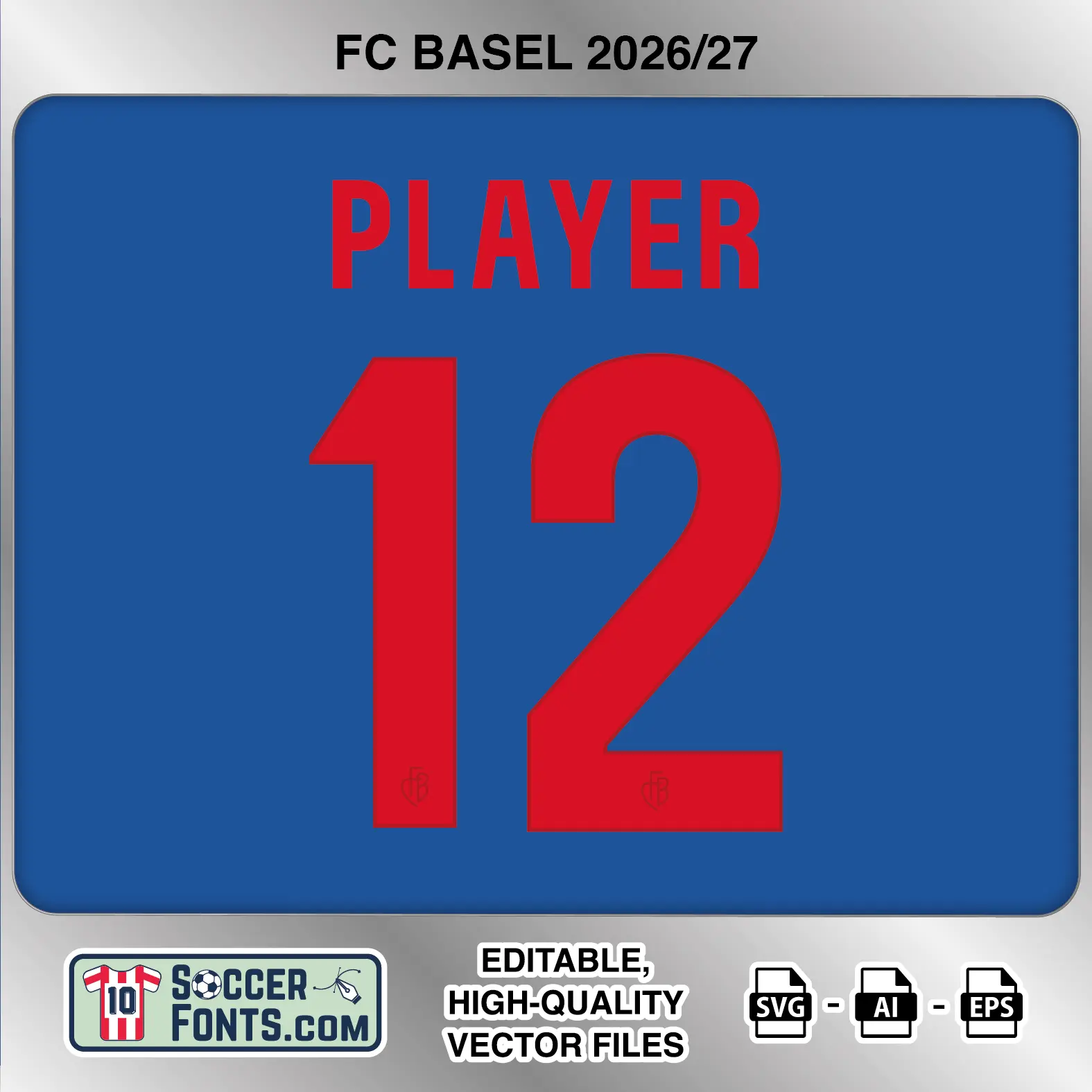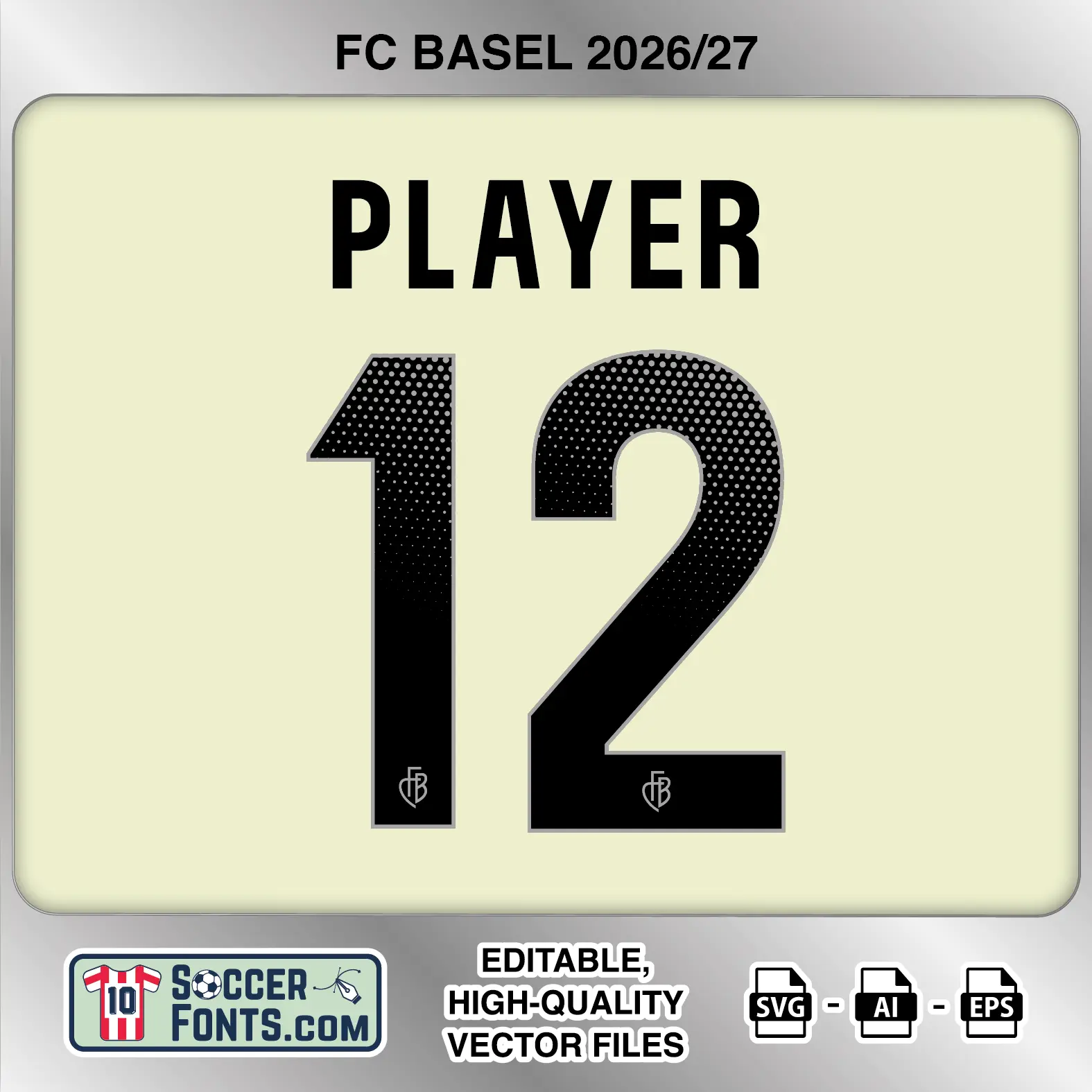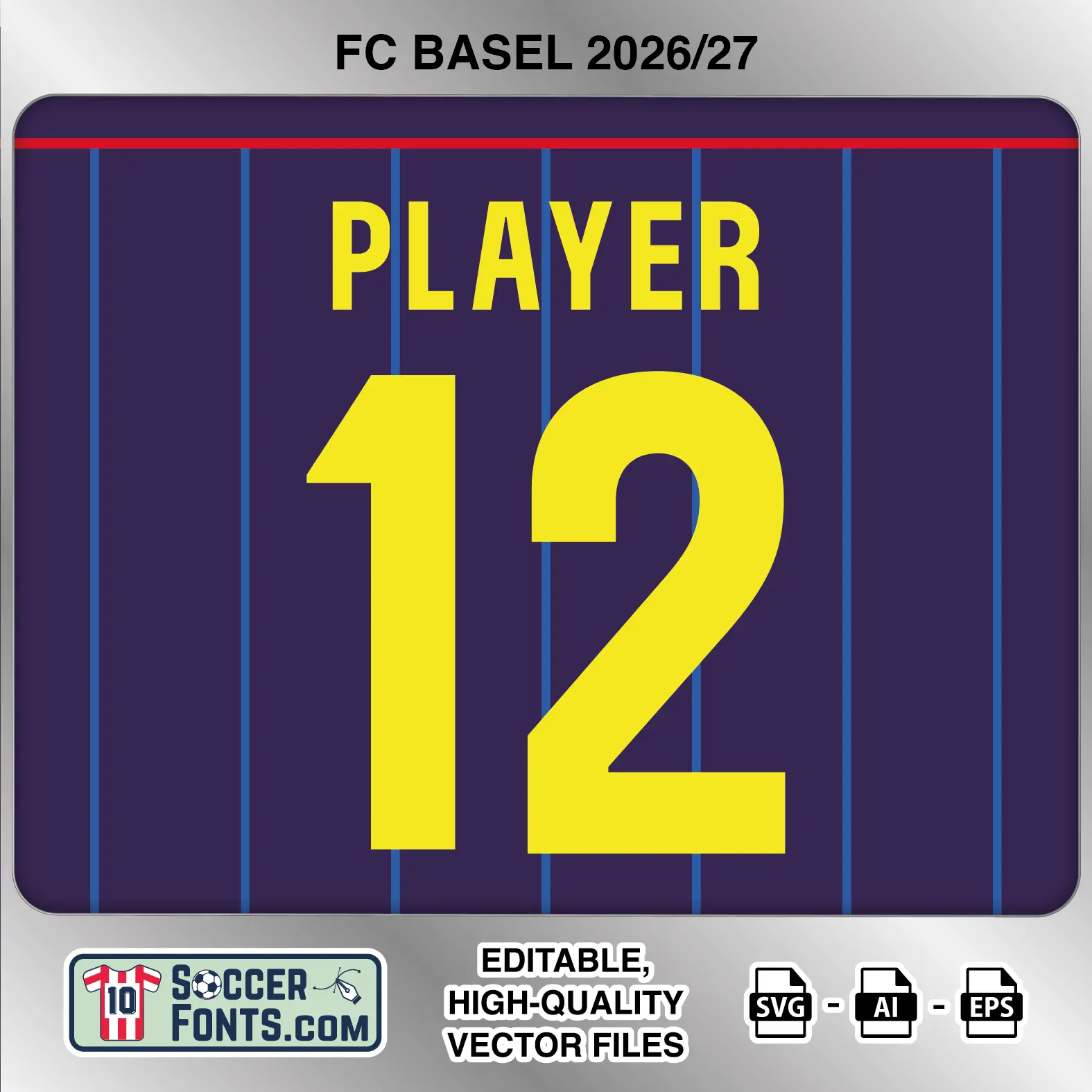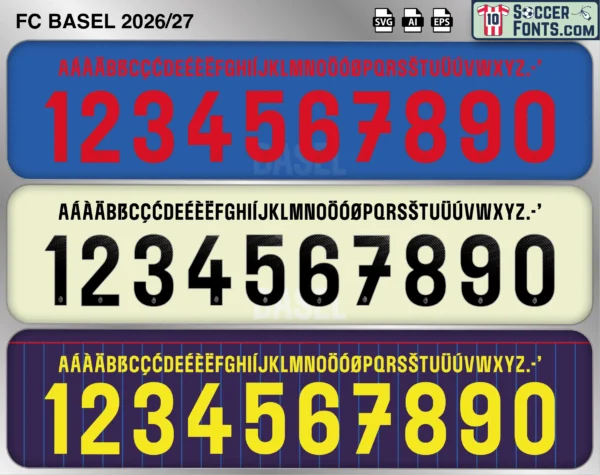
About FC Basel 2026-27 Font
Download FC Basel 2026-27 font, an editable soccer jersey lettering design in vector format inspired by the FC Basel home, away and third kit styles used during the 2026-27 football season. This football font artwork is prepared for football shirt recreations, custom jersey projects, football kit mockups and sports graphic design workflows.
Visual Identity of the Font Design :
The FC Basel 2026-27 lettering uses a tall, condensed uppercase alphabet combined with substantially heavier numbers. The letters have narrow proportions, straight vertical strokes and compact spacing, while the numerals use broad geometric shapes with a mixture of squared terminals and rounded curves. The 1 features an angled upper section, the 2 moves from a rounded top into a long diagonal stroke and flat base, and the 4 has a distinctive open construction. The 6, 8, 9 and 0 use large rounded counters. A small FCB monogram appears near the bottom of each numeral.
The home treatment uses bright red lettering and numbers against a blue background. The away version presents black lettering and numbers on a pale cream background, with the numerals featuring a visible halftone dot pattern that becomes denser toward their upper sections. The third treatment uses bright yellow lettering and numbers against a dark purple background with thin vertical blue stripes. All three versions share the same general condensed character structure, while the different colors and patterned away numerals give each kit treatment its own appearance. The supplied alphabet also includes a selection of accented uppercase characters for international player names.
Context of 2026-27 Season for FC Basel :
For football shirt collectors and kit design projects, the FC Basel 2026-27 Font brings the home, away and third lettering treatments together in one package. With red used for the blue home treatment, patterned black numbers on the pale away design and bright yellow lettering on the striped third style, the FC Basel 2026-27 Font provides a complete lettering reference for recreating the club’s three main 2026-27 shirt looks.